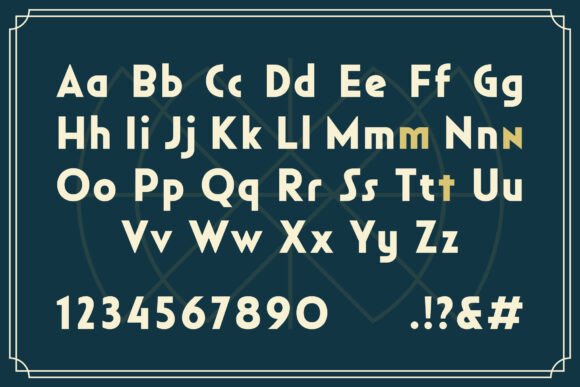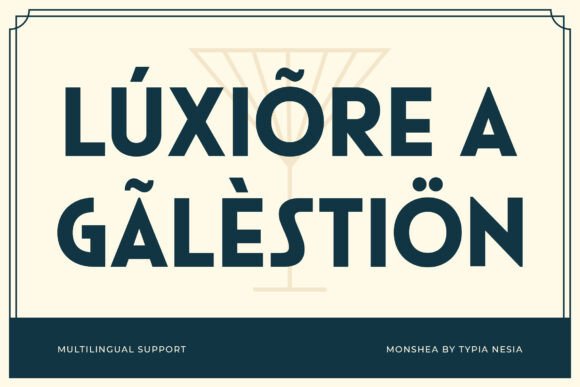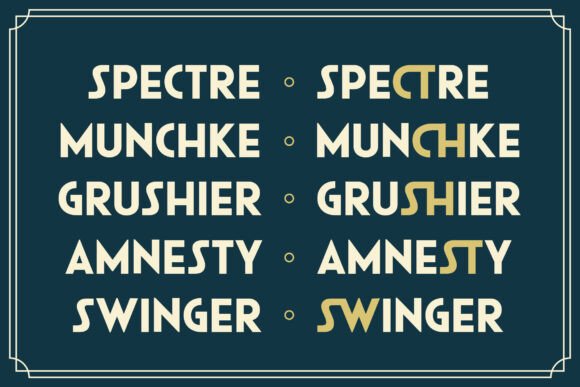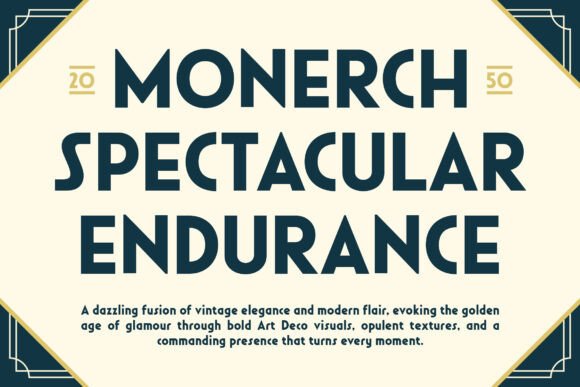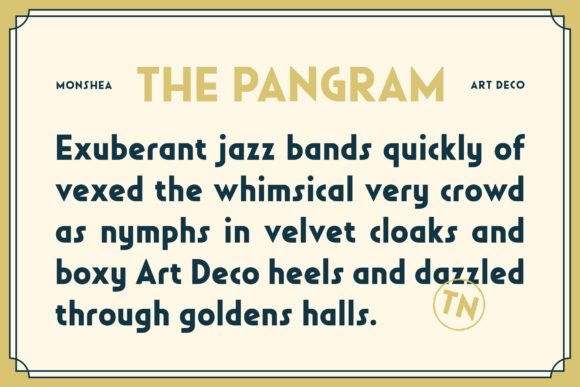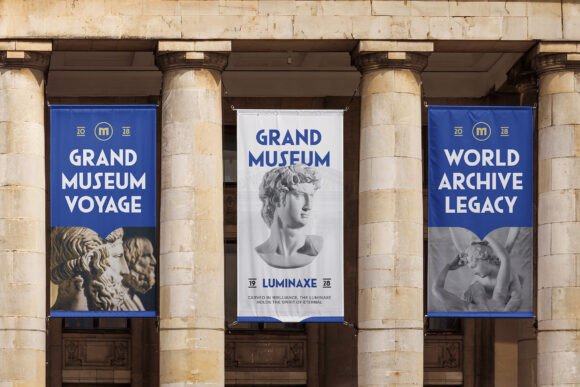
Introduction to Monshea Font
You’ve finally landed the dream project – a high-end branding campaign for a luxury client. You’ve poured your heart and soul into the concept, but something’s missing. A font that exudes elegance, sophistication, and a touch of vintage glamour. This is where the Monshea Font comes in – a bold art deco sans font that seamlessly blends classic historical elements with modern flair.
As a designer, you know how crucial it is to have a versatile design resource at your disposal. The Monshea Font is more than just a stylish addition to your creative project – it’s a game-changer. With its strong, geometric forms and Art Deco aesthetic, this font adds a commanding presence to your designs, elevating them to new heights of sophistication and refinement. And the best part? It’s available for a free download, making it an invaluable asset for any designer looking to take their work to the next level.
Key Features of Monshea Font
- Comes in a single font weight, making it easy to use and customize for various design projects.
Honest Review: Monshea Font
As a designer, I’m always on the lookout for high-quality design resources to elevate my creative projects. Recently, I stumbled upon the Monshea Font, and I’m excited to share my honest review.
What works well: ✨ The Monshea Font is incredibly versatile, with a beautiful, modern design that’s perfect for a wide range of applications. It’s also free to download, making it an excellent choice for designers on a budget.
- High-quality design that’s perfect for modern projects
However, there are a few limitations to consider: ⚠️ The font is only available in a single weight, which may not be suitable for projects that require a range of weights and styles.
Overall, I’m impressed with the Monshea Font, and I think it’s a great addition to any designer’s toolkit. While it may not be perfect, its high-quality design and free download make it a valuable resource for any creative project.
Monshea Font
The Monshea Font is a high-quality design resource perfect for creative projects that require a unique and eye-catching look. This free download offers a transparent background, making it easy to use in a variety of applications.
Tips for Getting the Most Out of the Monshea Font
To get the most out of the Monshea Font, be sure to use it in conjunction with other design elements that complement its unique style. You can also experiment with different font sizes and colors to create a visually appealing look.
The Monshea Font is perfect for a variety of creative projects, including social media graphics, flyers, and brochures. It’s also great for use in presentations and documents where a unique and eye-catching font is desired.
Alternatives to Monshea Font
Oswald Font is a popular sans-serif typeface that offers a high-quality design resource for creative projects. It features a clean and modern design, making it perfect for use on websites with a transparent background. Oswald Font is ideal for headings and titles due to its bold and strong appearance.
Comparison to Monshea Font: Oswald Font has a more geometric and modern look compared to Monshea Font’s rounded edges.
Abril Fatface Font is a beautiful and elegant script font that is perfect for creative projects requiring a touch of sophistication. Its high-quality design makes it suitable for use on a transparent background, and it’s ideal for headings and titles due to its bold and eye-catching appearance.
Comparison to Monshea Font: Abril Fatface Font has a more luxurious and vintage look compared to Monshea Font’s modern design.